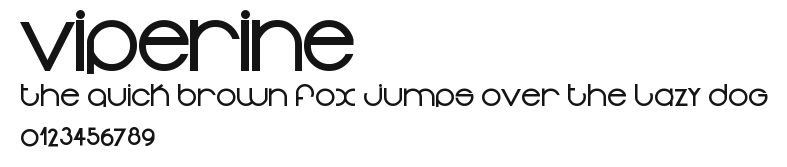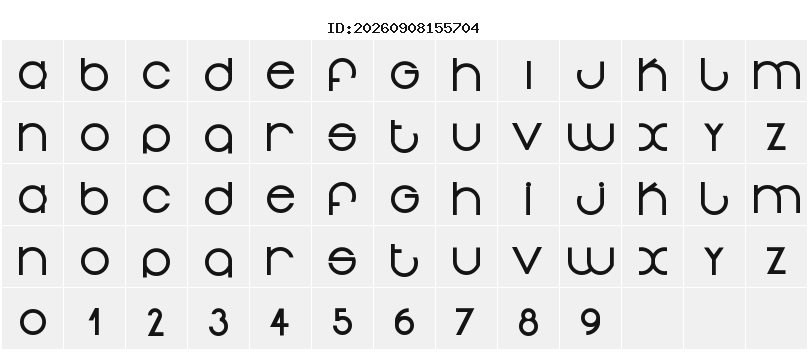
viperine Preview
• Font Name: viperine
• Font ID: vipérine:Version 1.00
• Full Font Name: vipérine
• Version: Version 1.00 May 9, 2013, initial release
• PostScript Name: viperine
• Designer: paintblack
• Manufacturer: paintblack
• Description: viperine Font by paintblack 2013. Version free for personal use only.
About viperine.ttf
viperine.ttf is a modern, elegant sans-serif font designed for ultimate readability and visual harmony. Perfect for branding, headlines, web design, and print materials.